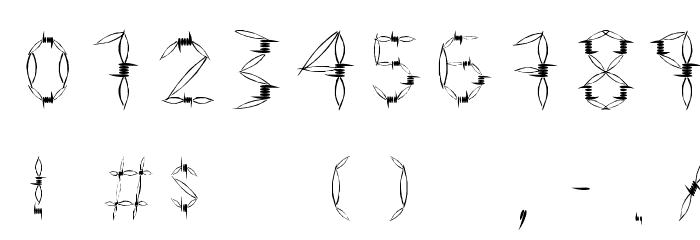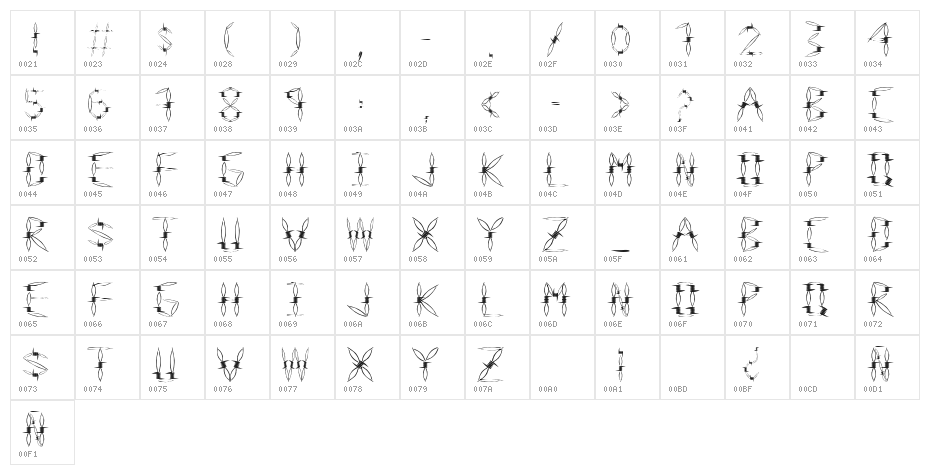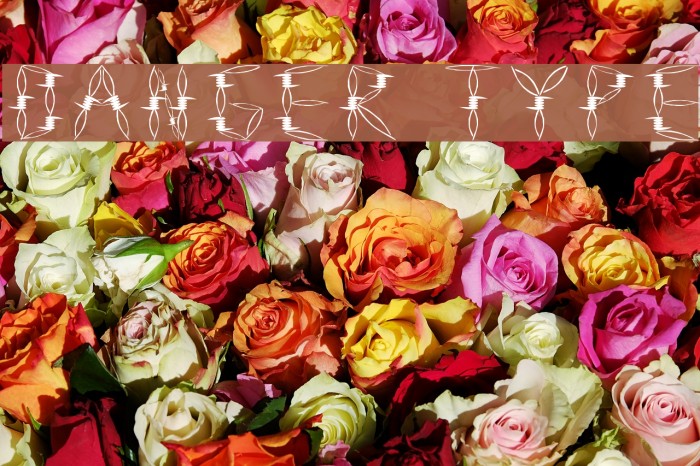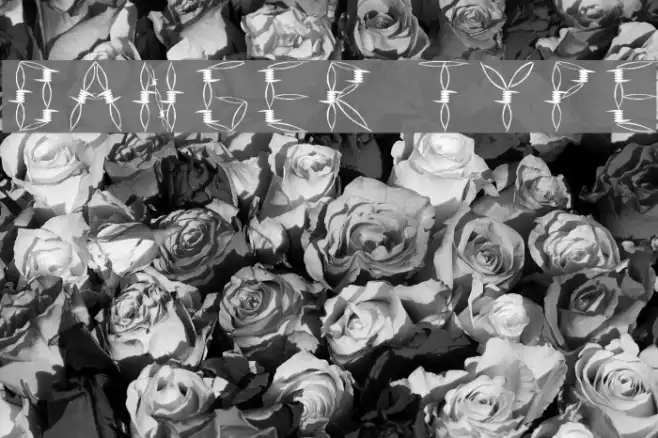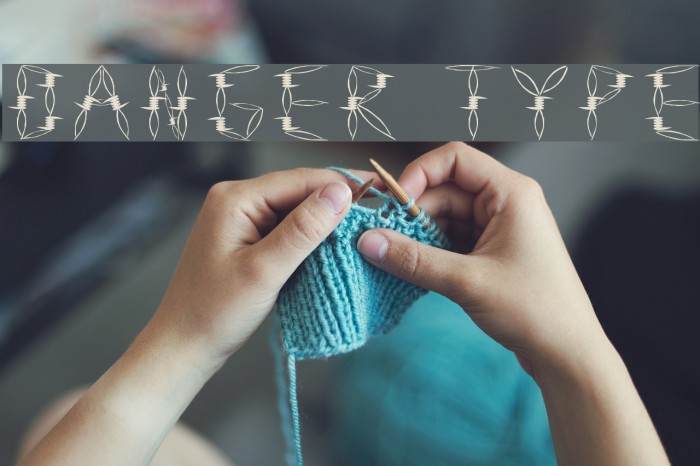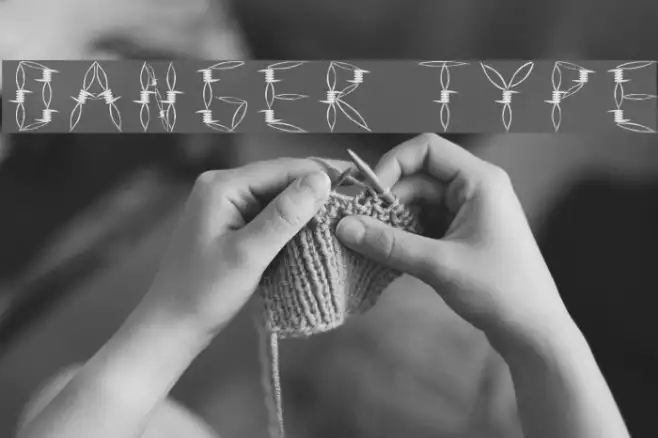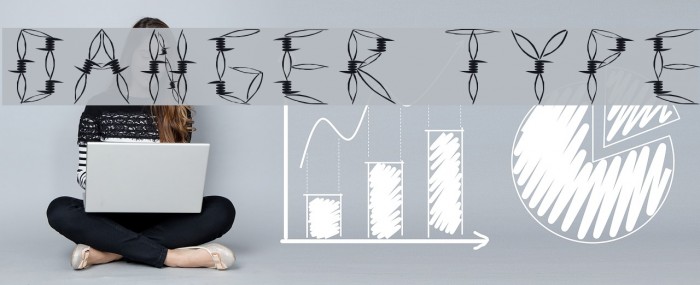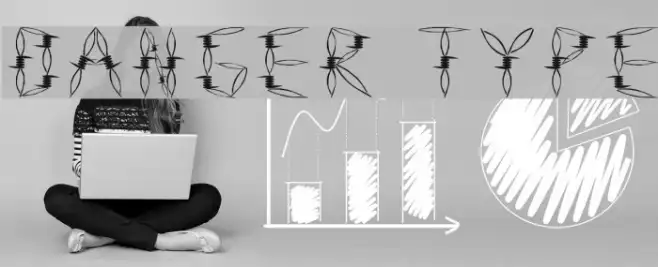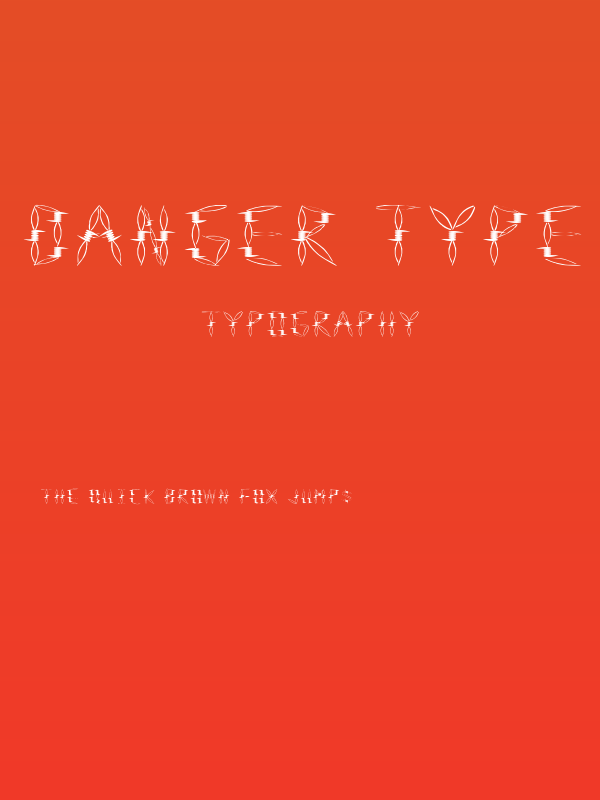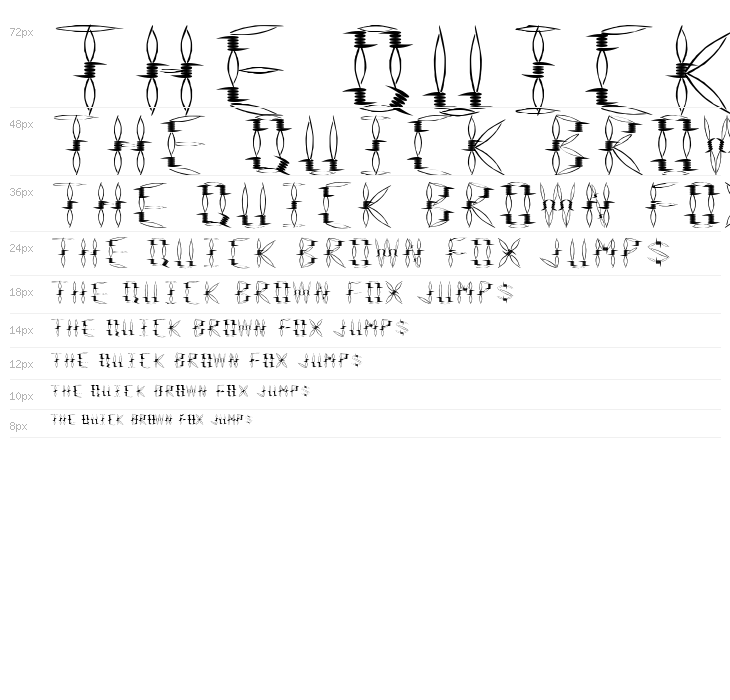
Danger Type Font
Danger Type Description
This font features a unique, edgy design with sharp, angular strokes and a slightly chaotic appearance. The characters are composed of jagged lines that create a sense of movement and energy. Each letter and number is distinct, with an abstract, almost hand-drawn quality that gives the font a dynamic and unconventional look. The special characters maintain this style, adding to the overall cohesive yet unpredictable aesthetic. This font is ideal for projects that require a bold statement or an artistic touch.
| Use Case | Headlines, Logos, Artistic projects |
| Proposed Projects | Ideal for album covers, posters, edgy branding, and artistic projects that require a bold, unconventional look. |